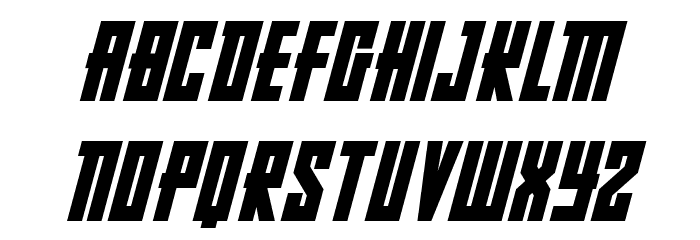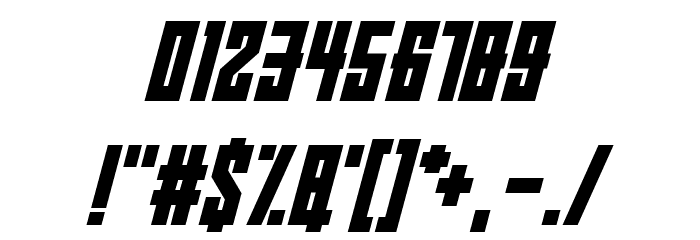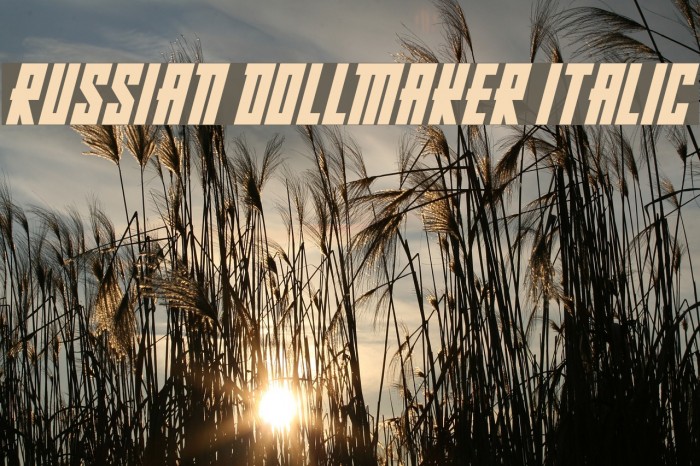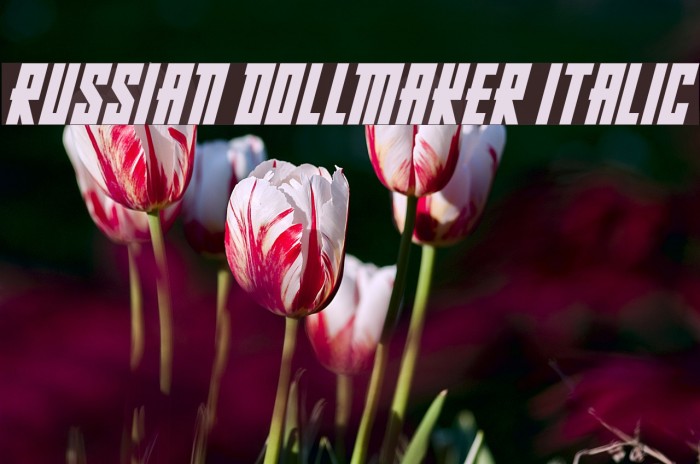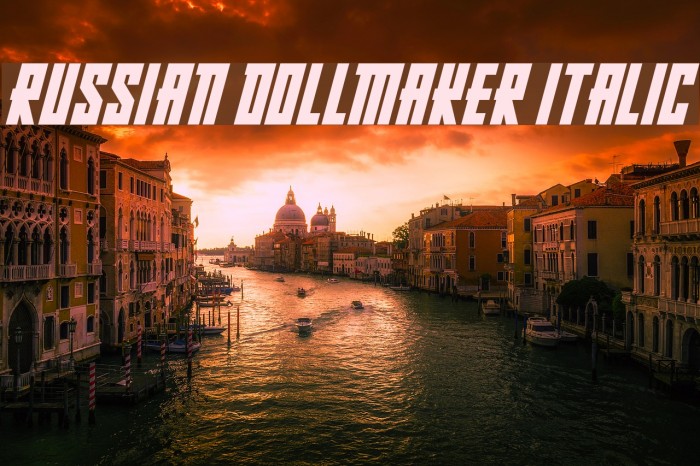
Russian Dollmaker Italic Font
This font features a bold, angular design with a strong geometric influence. The characters are sharply defined with a distinct italic slant, giving them a dynamic and energetic appearance. The uppercase and lowercase letters maintain a consistent style, with the uppercase being more pronounced. Numbers and special characters follow the same angular and bold aesthetic, ensuring uniformity across all glyphs. The font's design is reminiscent of futuristic or industrial themes, making it suitable for projects that require a modern and edgy look.
A bold, angular, and italic font with a futuristic and dynamic style.
- Proposed Projects: Ideal for use in video game titles, movie posters, branding for tech companies, or any project that requires a modern and bold statement.